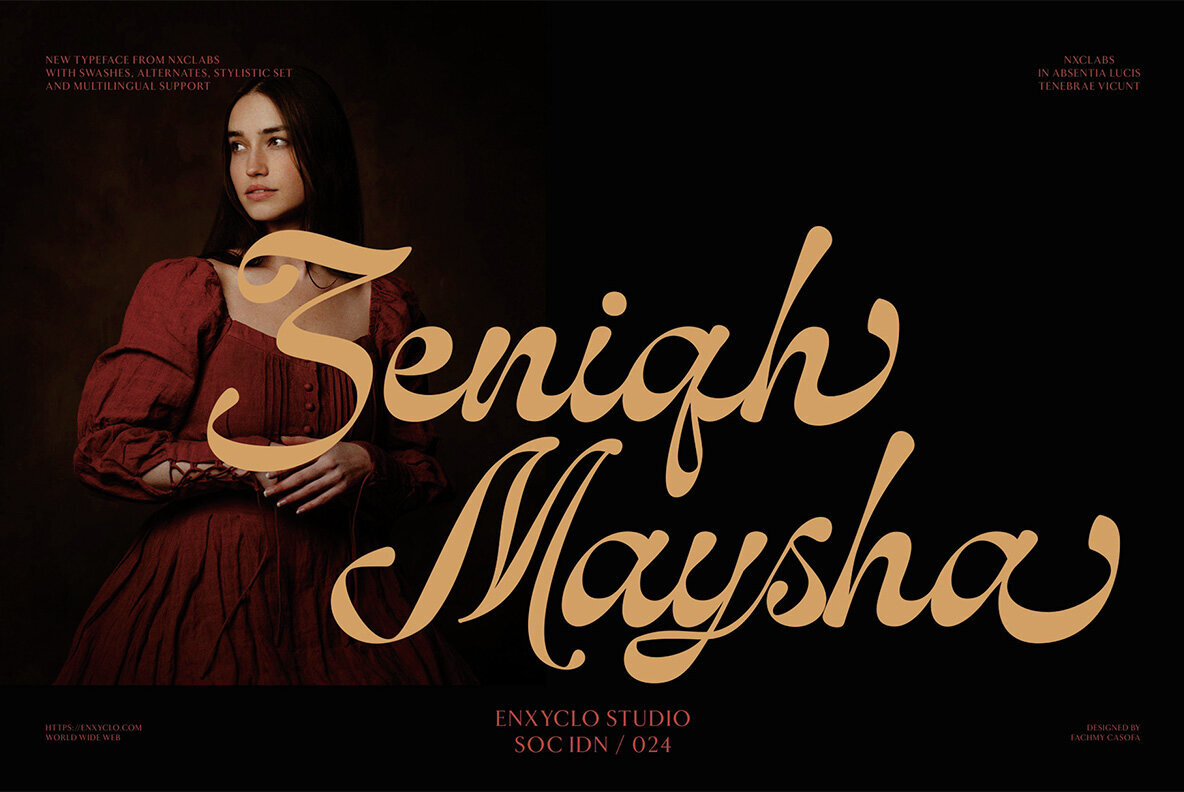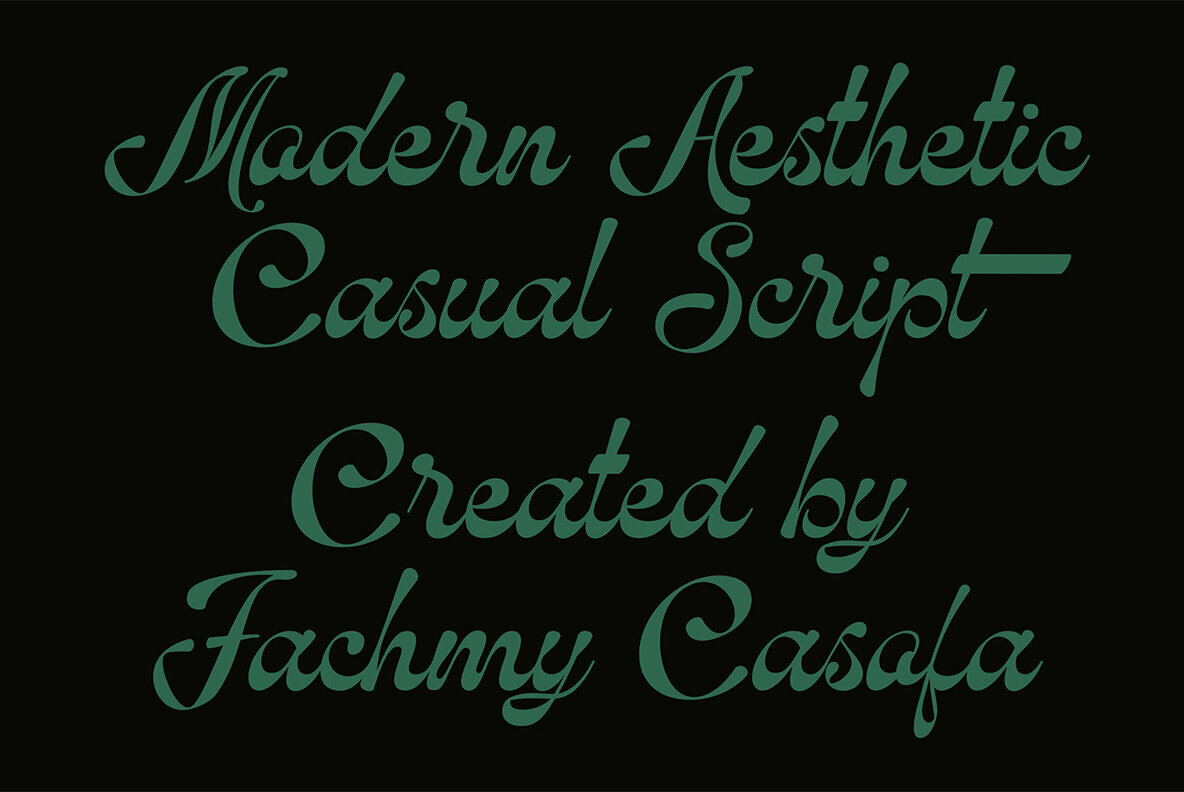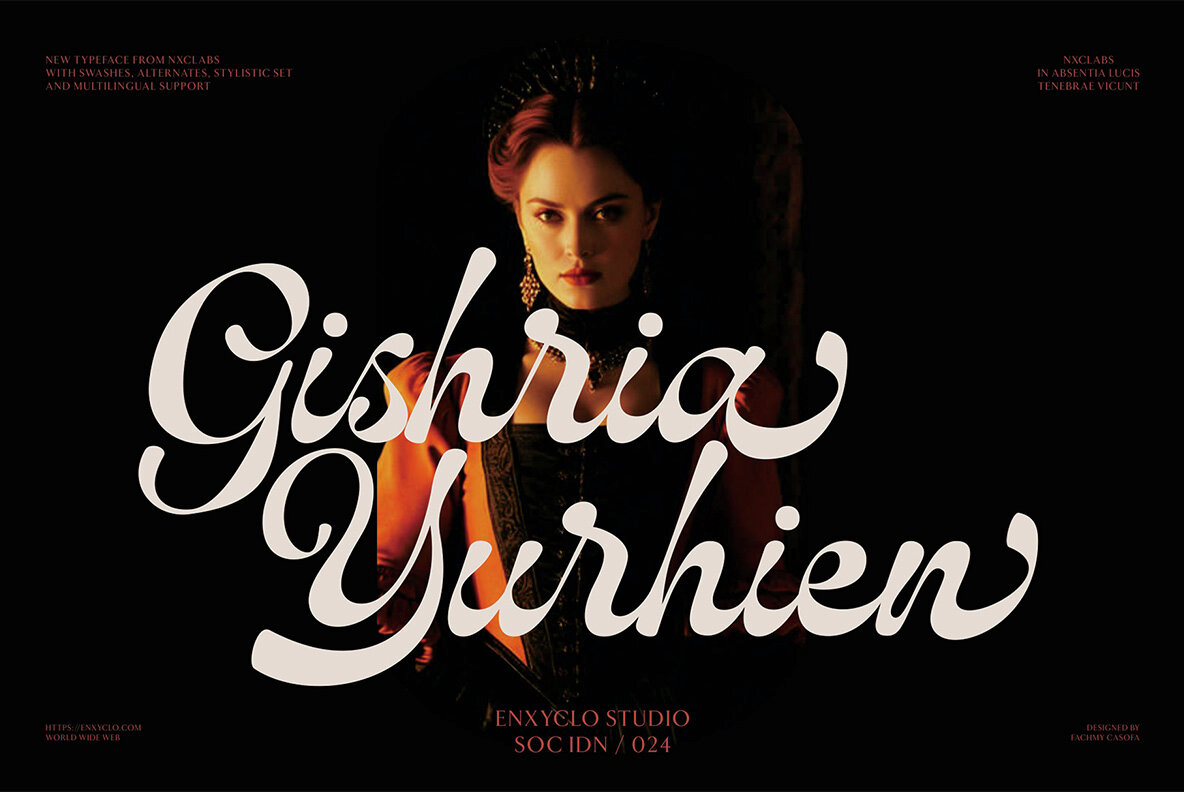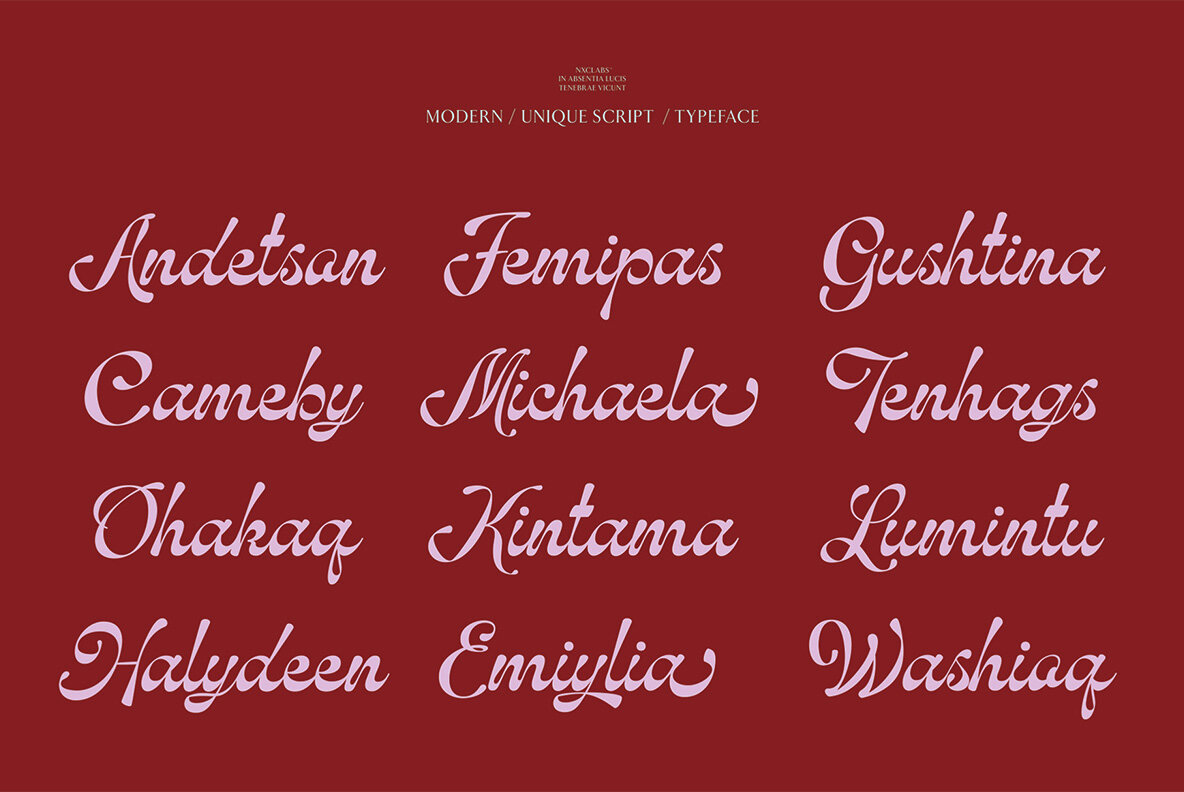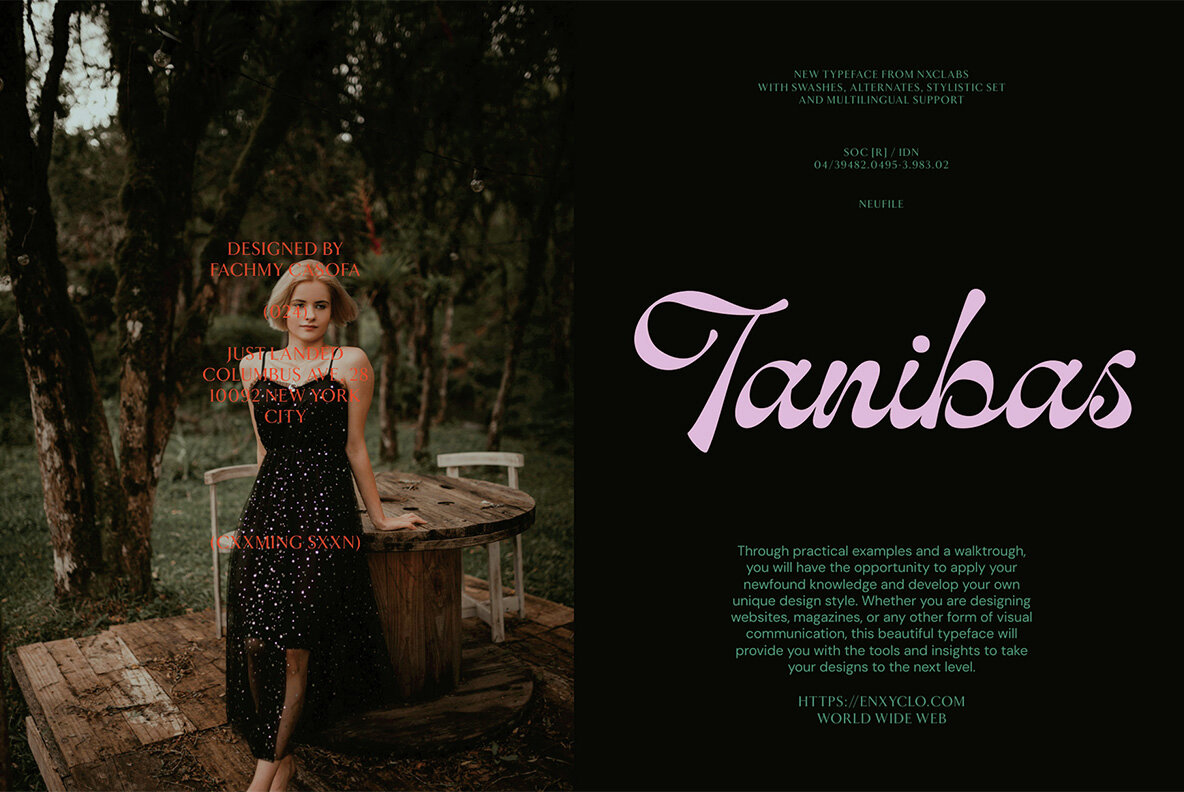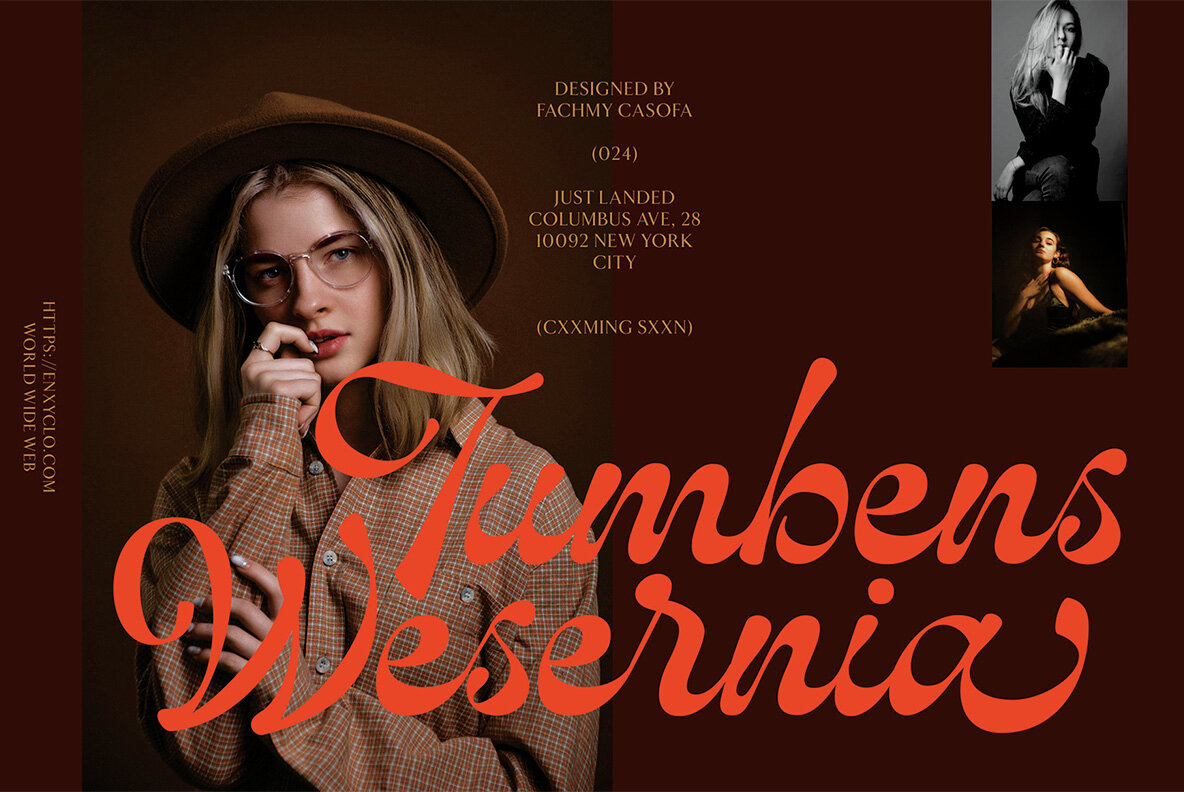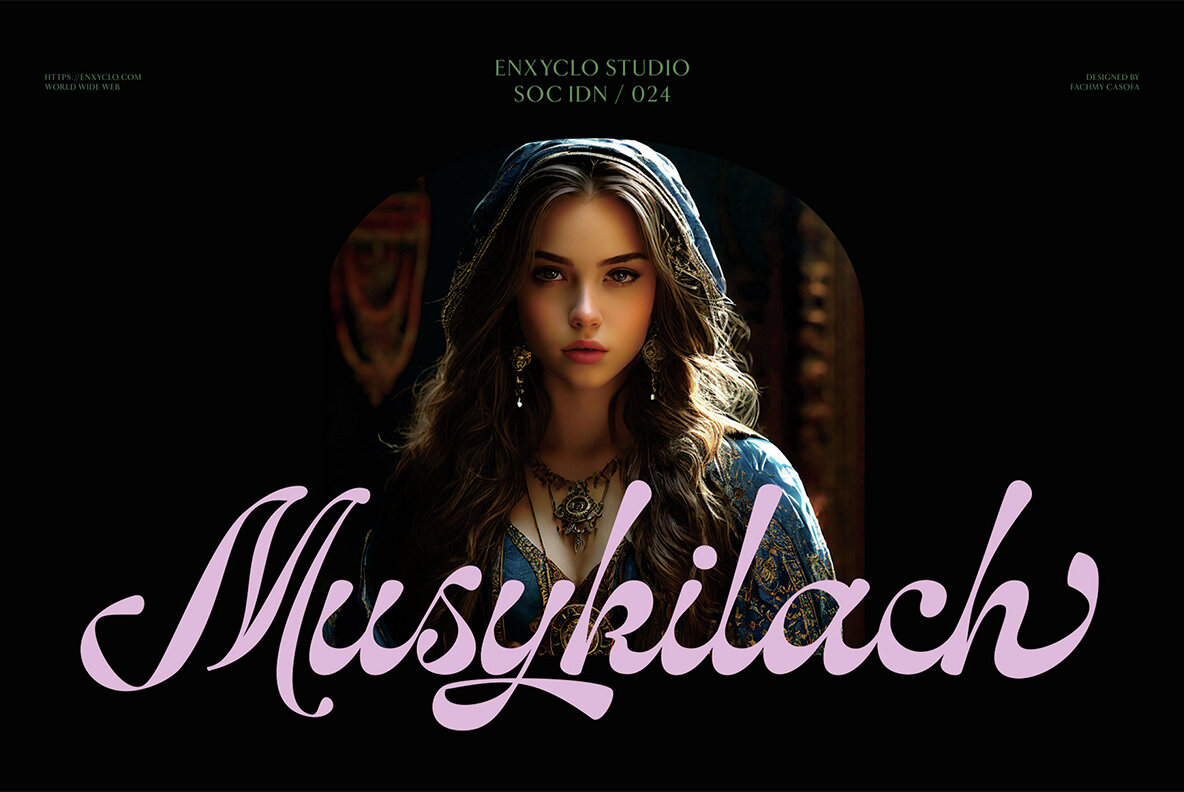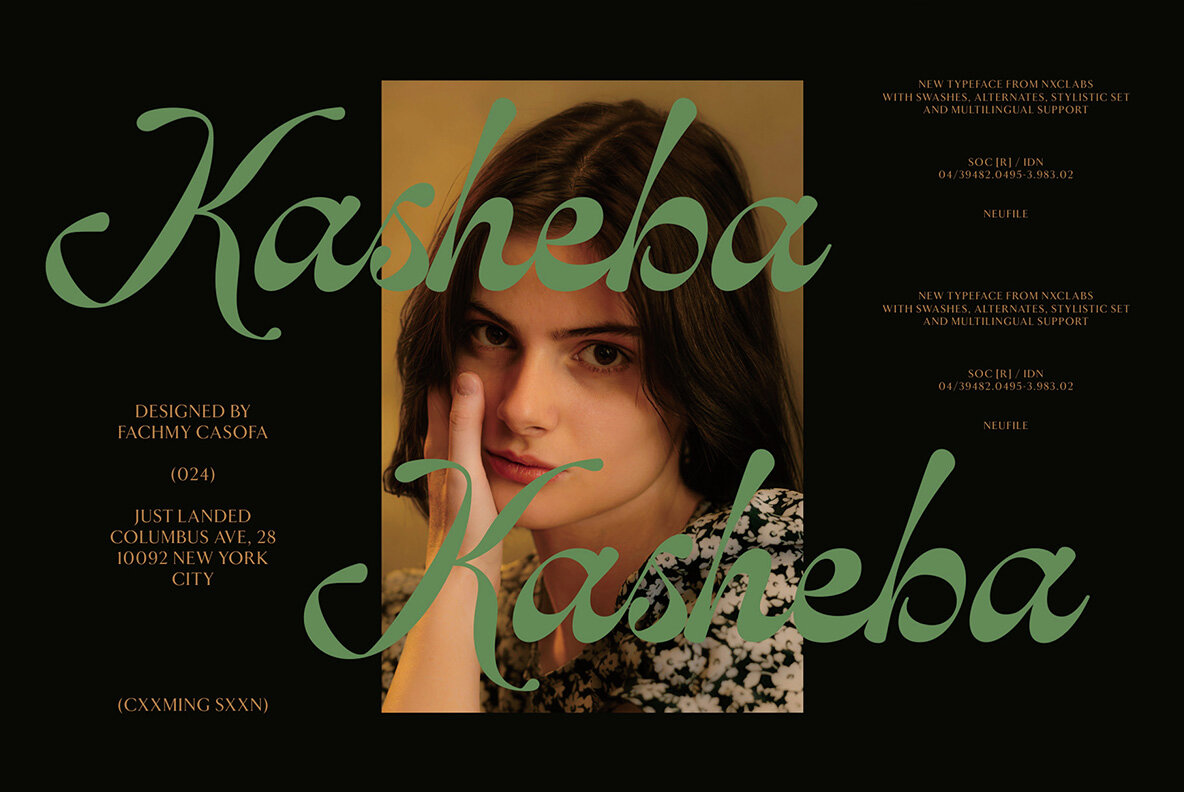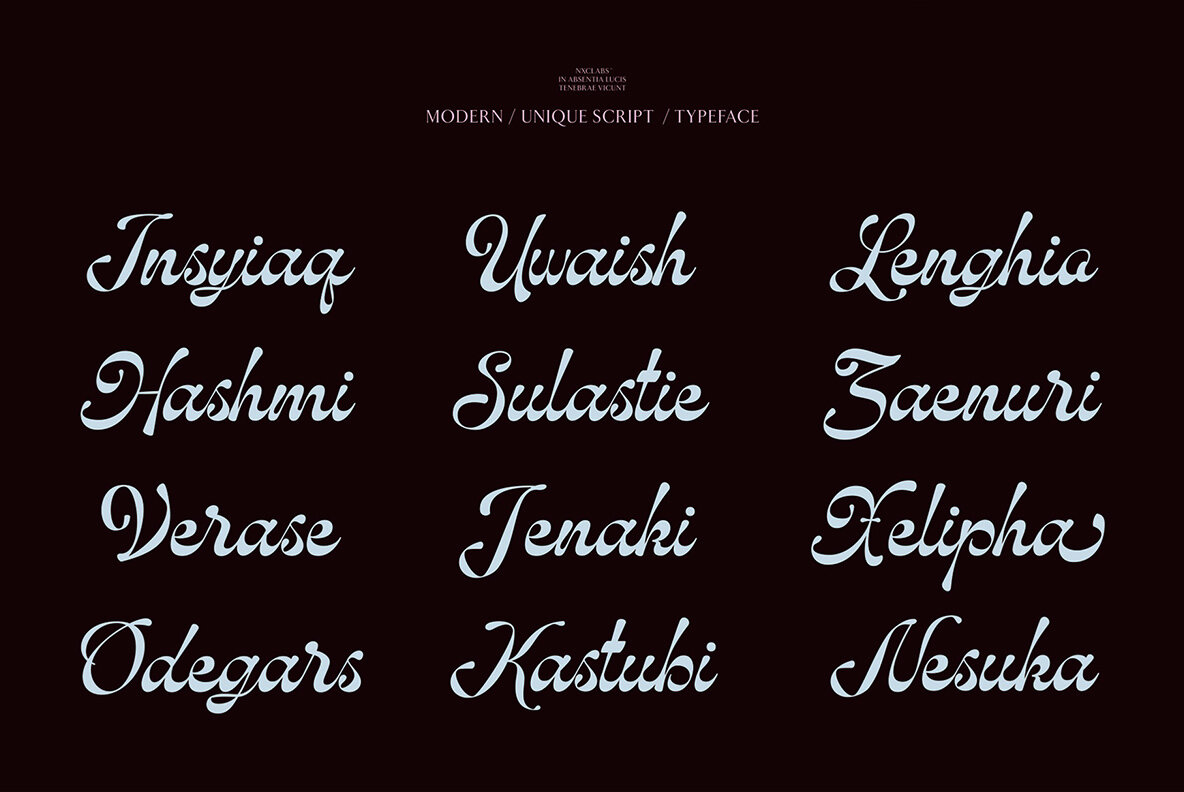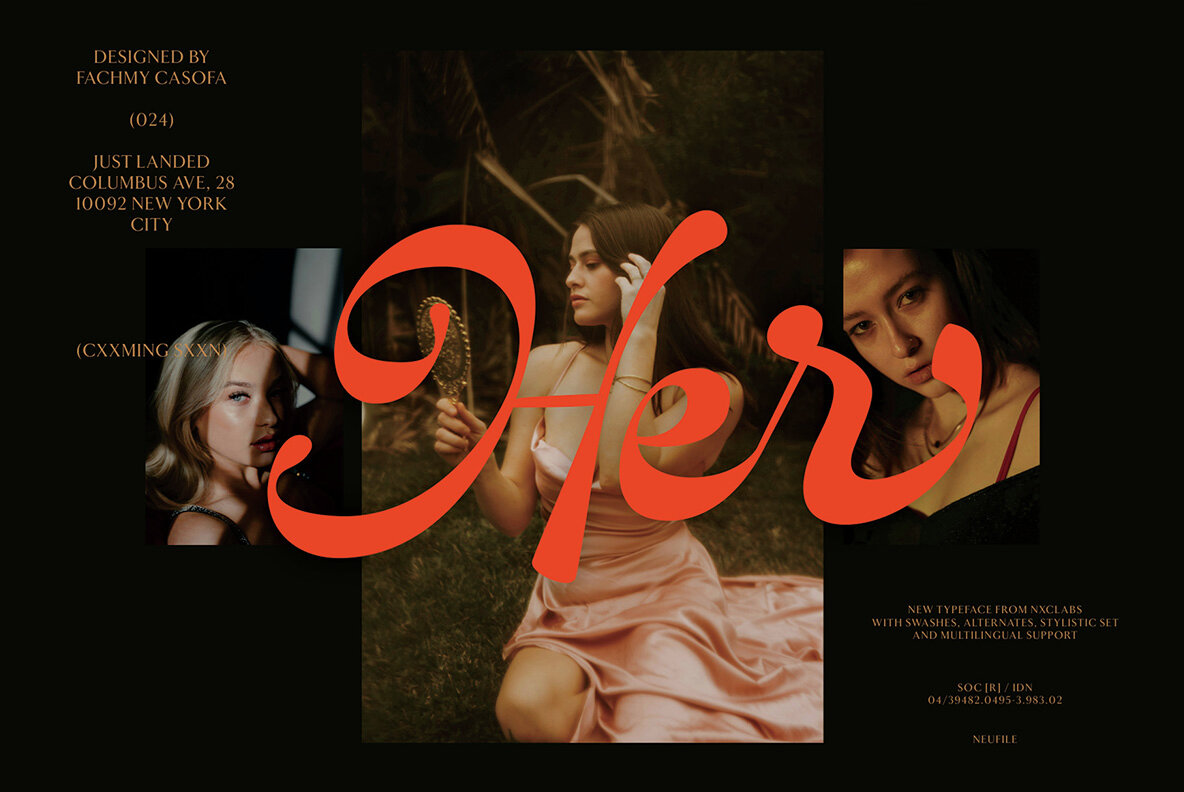
NCL Hubiny Font
NCL Hubiny Regular
NCL Hubiny is a modern casual script display font designed for versatility and impact. Crafted specifically for large point sizes, it retains its charm even when scaled down, making it ideal for a variety of creative applications. Whether you're working on headlines, digital ads, magazines, websites, posters, branding, or logos, this font adds a distinctive flair to your design projects.
Featuring 254 unique glyphs, NCL Hubiny includes alternates and a stylistic set (1-3), offering a range of options to tailor your work. The font supports both uppercase and lowercase characters, numerals, punctuation, symbols, and multiple languages, ensuring broad usability. Add this beautiful font to your library and see how it can make your project stand out effortlessly.